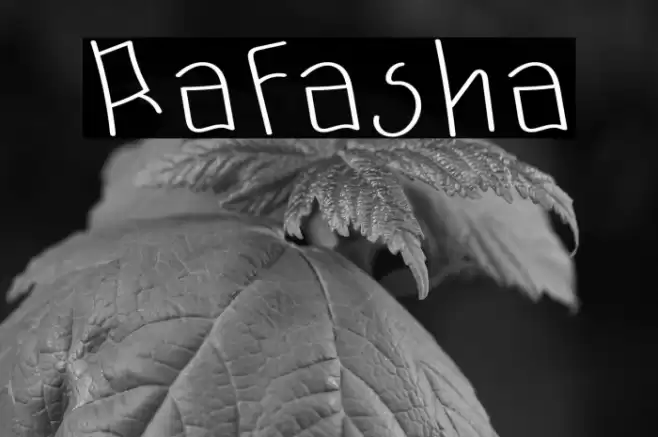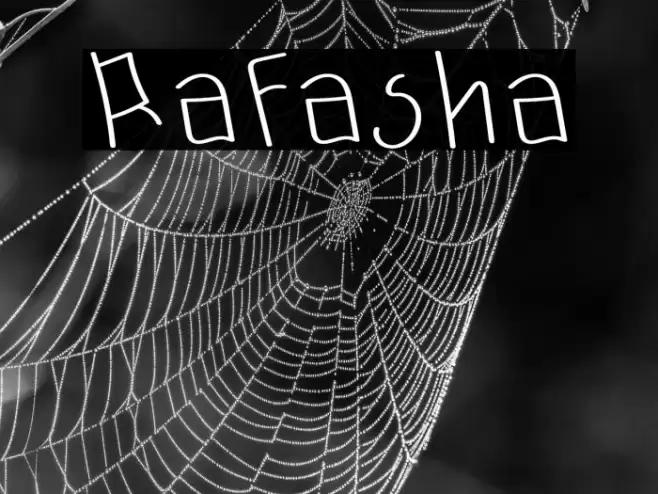
Rafasha Font
Rafasha Description
This font features a playful and quirky design with irregular, hand-drawn strokes that give it a whimsical and artistic feel. The uppercase letters are characterized by their unique shapes, with some letters incorporating unexpected twists and turns, such as the 'G' with its spiral element. The lowercase letters maintain a consistent style, complementing the uppercase with their own distinct flair. The overall appearance is casual and informal, making it suitable for creative projects that require a touch of personality and charm. The font lacks traditional serifs, contributing to its modern and unconventional look.
A playful, hand-drawn font with quirky, irregular strokes and a whimsical style from Regular fonts.
- Proposed Projects: Ideal for children's books, creative posters, artistic branding, and playful invitations.
- Use Case: Logos, Posters, Invitations